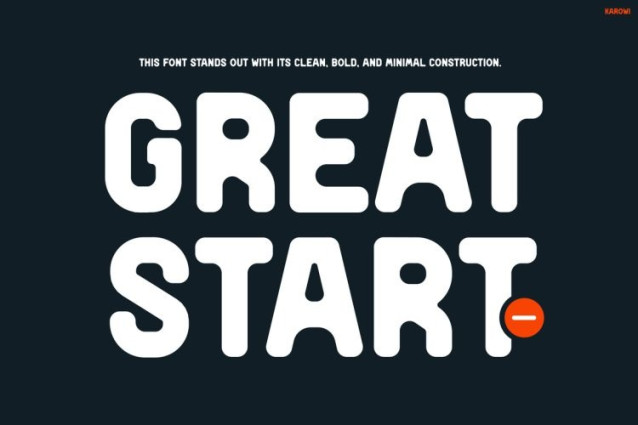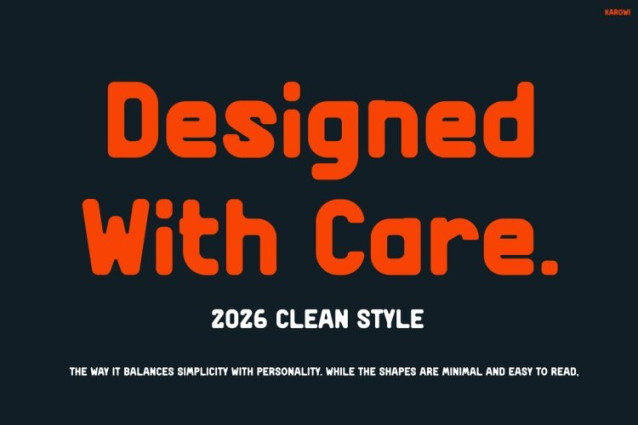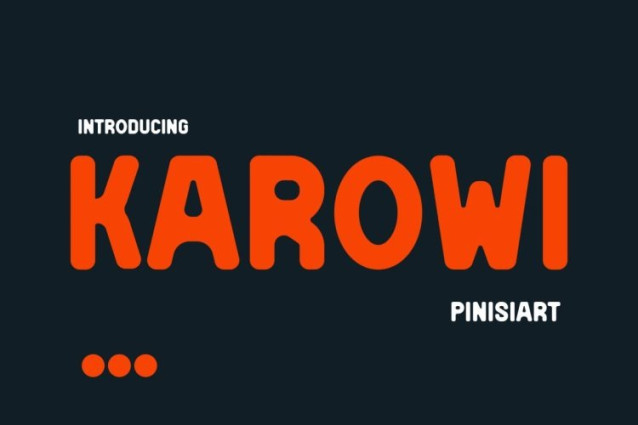
Karowi Font
Karowi Font delivers a striking visual identity with bold, rounded shapes and clean geometric balance. Moreover, its smooth curves create a friendly yet confident tone, making every word feel approachable and strong at the same time. In addition, the balanced letterforms ensure high readability, while still maintaining a unique and playful personality. As a result, KAROWI stands out beautifully in headlines, branding, and promotional layouts. Furthermore, its modern aesthetic blends minimalism with expressive form, so your designs always feel fresh, bold, and visually engaging across different platforms.
KAROWI is ideal for designers, creative studios, startups, and forward-thinking brands that want to appear modern yet human-centered. In particular, it works perfectly for social media graphics, posters, logos, packaging, UI design, and advertising campaigns. Additionally, it adapts seamlessly to both digital and print media, which makes it highly versatile. Whether you are building a bold brand identity or designing engaging marketing materials, KAROWI helps you communicate ideas clearly and effectively. Therefore, it’s a reliable choice for creatives who want both style and function in one font.
Not only does KAROWI provide excellent readability, but it also delivers a strong visual impact that captures attention instantly. Furthermore, its rounded shapes add warmth, while its bold weight ensures your message stands out in crowded layouts. Because of this, your designs feel more dynamic, inviting, and professional. In addition, KAROWI supports creative flexibility, allowing you to experiment with different styles and compositions. Ultimately, it helps you design faster while achieving polished, high-quality results every time.